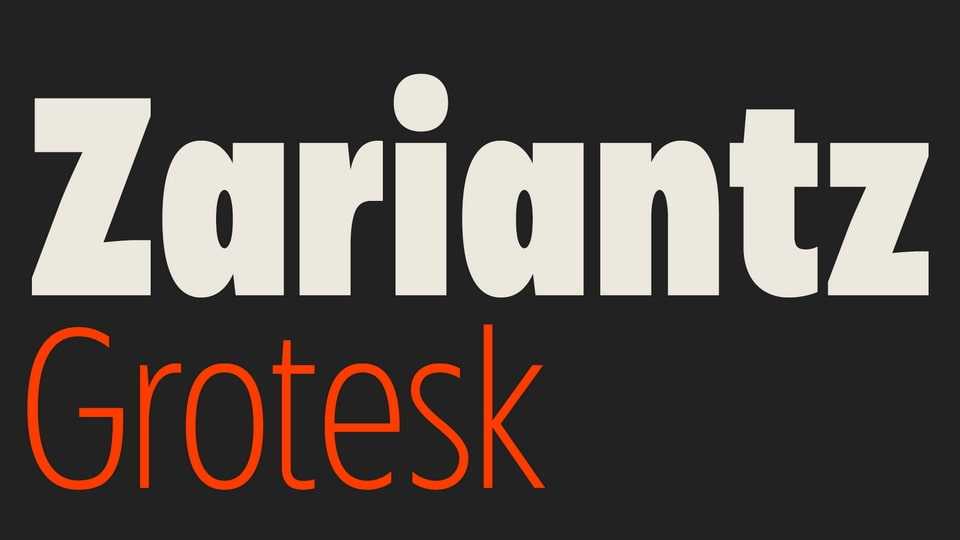
Download Zariantz Grotesk Variable font, a contemporary sans serif typeface inspired by a quiet walk through the streets of Casamassima, Puglia—where a commemorative plaque honors Hrand Zariantz, an Armenian-Italian writer, poet, and journalist.